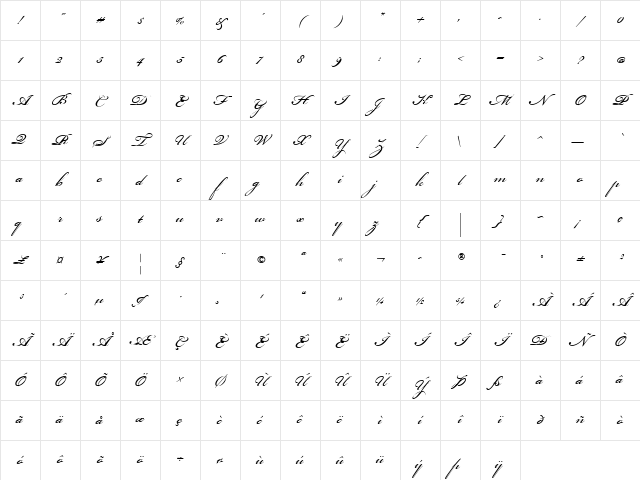
Complete Bickham Script One Regular glyph index. Displaying only characters natively supported by Bickham Script One Regular font.
Bickham Script One flows with the natural rhythm of handwritten lettering, making it ideal for designs that call for warmth and personal expression.
Font Pairing: Combine Bickham Script One with a simple geometric sans for maximum contrast - the tension between flowing curves and clean structure is a classic typographic pairing.
Pro Tip: Use Bickham Script One for short runs of text - names, titles, or taglines. Extended body copy in script faces tires the eye quickly.